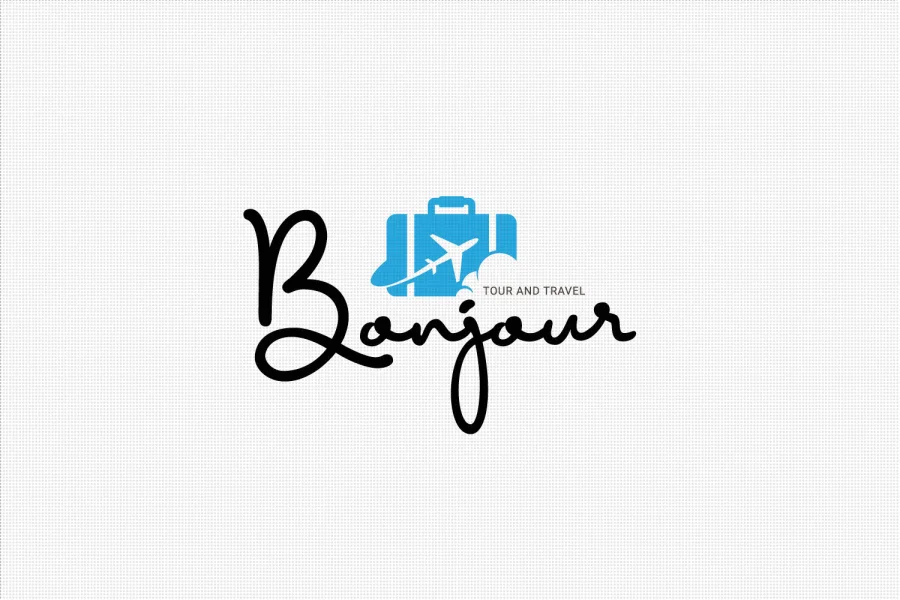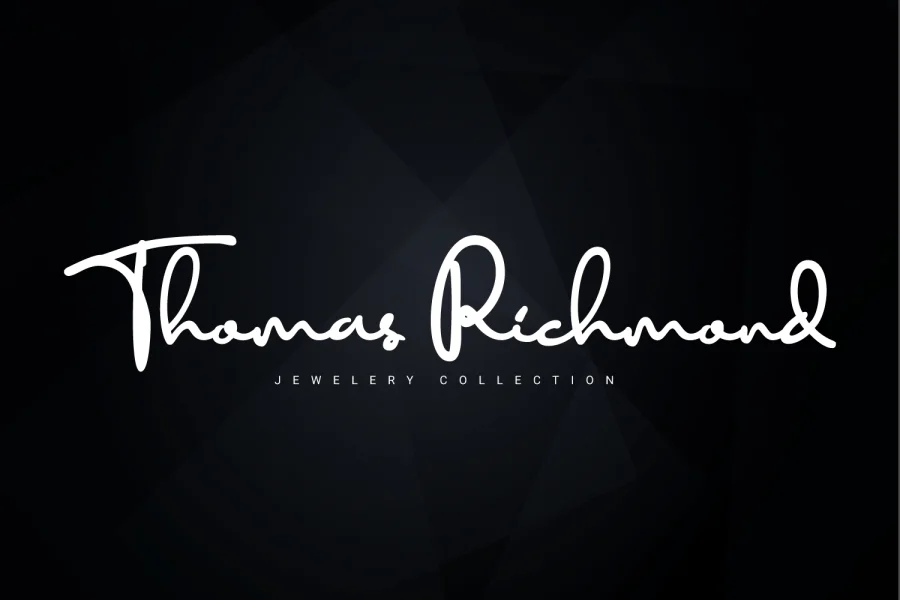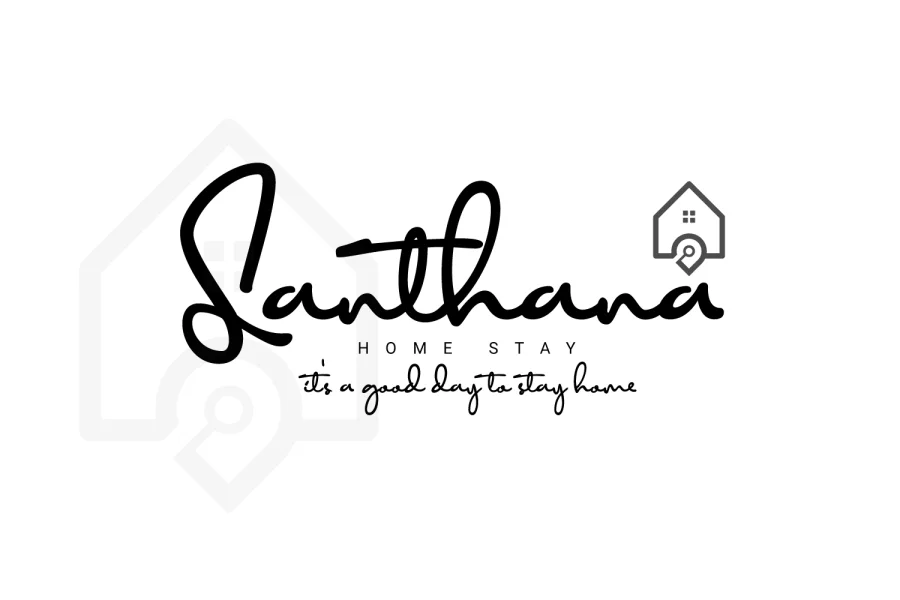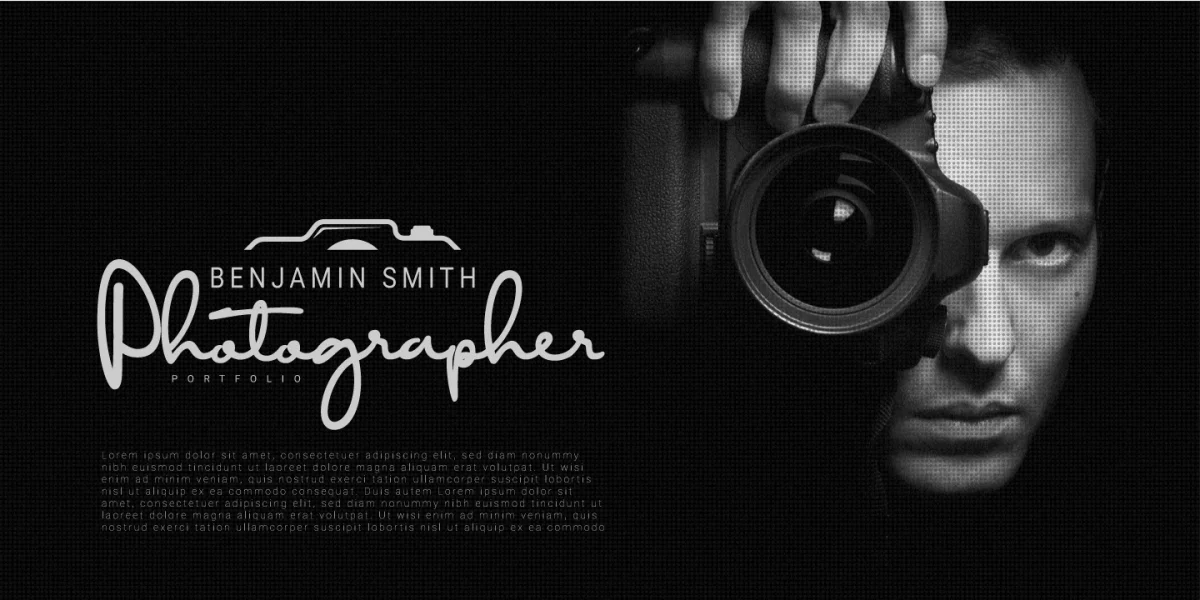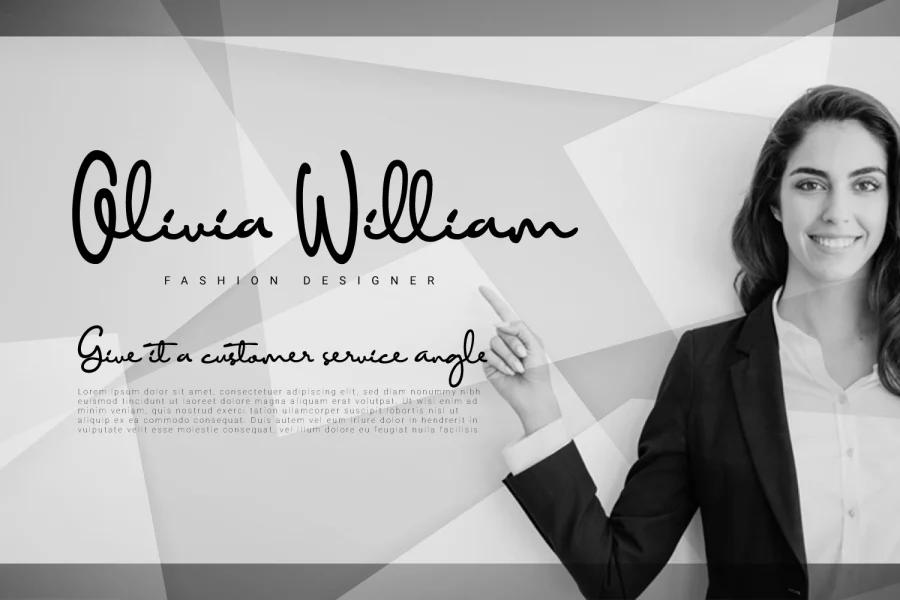
Diamant Handwriting is an upright handwritten font, which looks like a thick pen stroke. Form orientation is generally flowing horizontally, this is a reflection of composure in writing, we set the rhythm of each glyph so that the combination of high and low letters is very soft, try it, whatever you type with this font looks very calm. Activate the OpenType feature, because this font is equipped with ligatures (liga), Stylistic(salt), Contextual(calt) and initial alternates. We present all of this so that your writing is automatically setup, we also provide access to all alternates (aalt) features, this allows you to choose the glyph you like manually. We designed this font only for brand identity. Your brand will look different from other brands. You can also use it for short slogans to further amaze views and attract more customers to see you closer. ‘Diamant’ is another word of diamond that is often used in Europe, we give this name as a representation of the whole font as a symbol of luxury, brilliance and stability and comfort. We do not extend the theory and philosophy of this font, you better try it yourself, and you will be amazed.